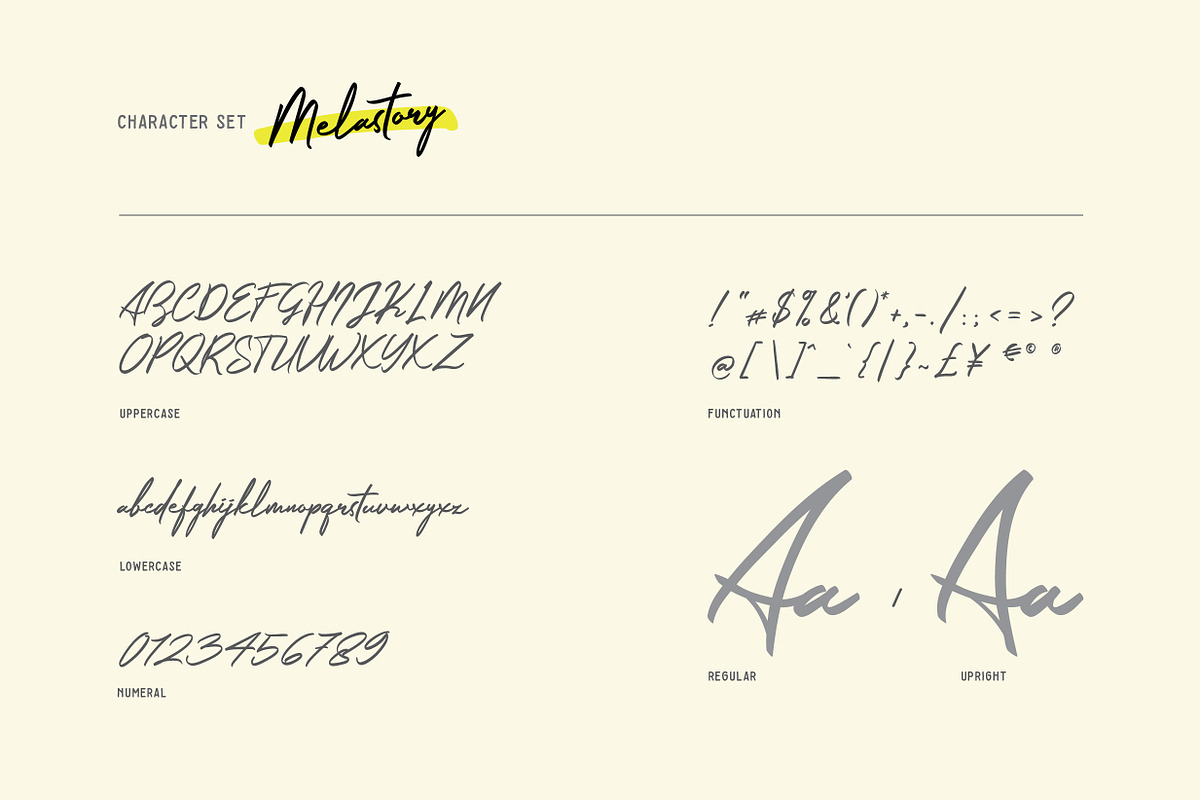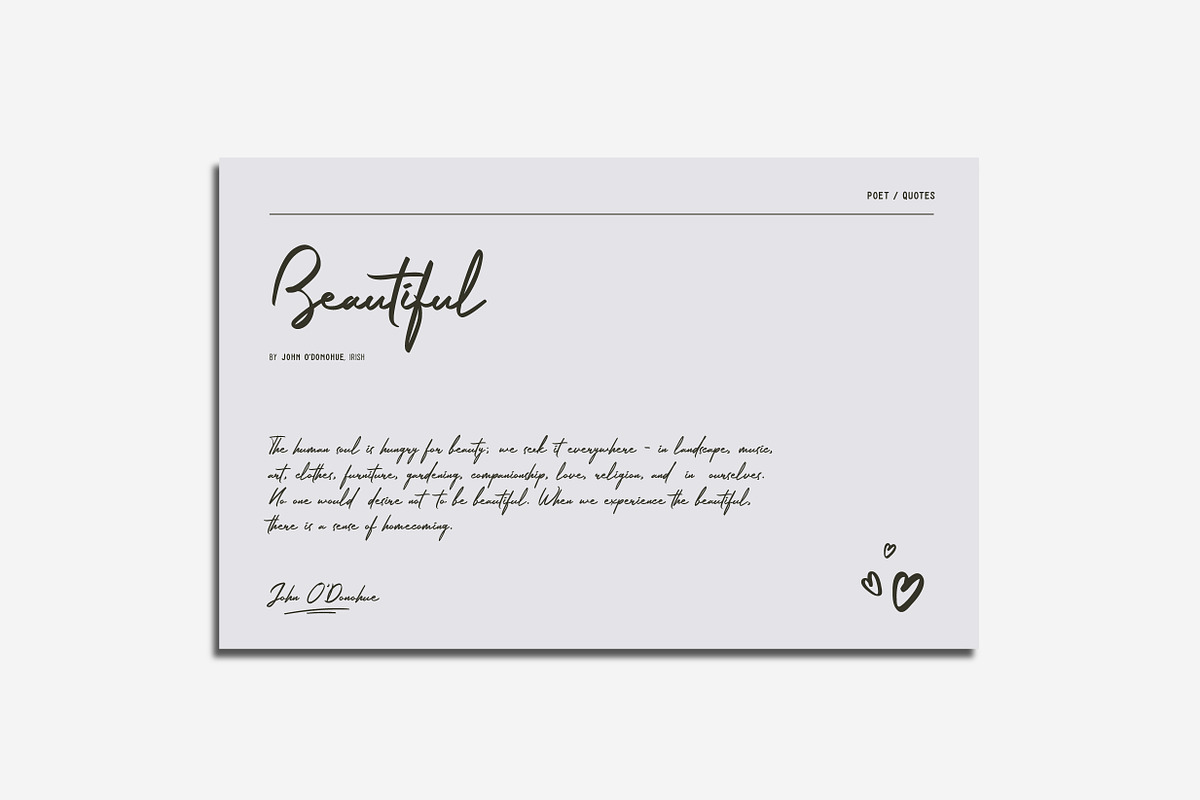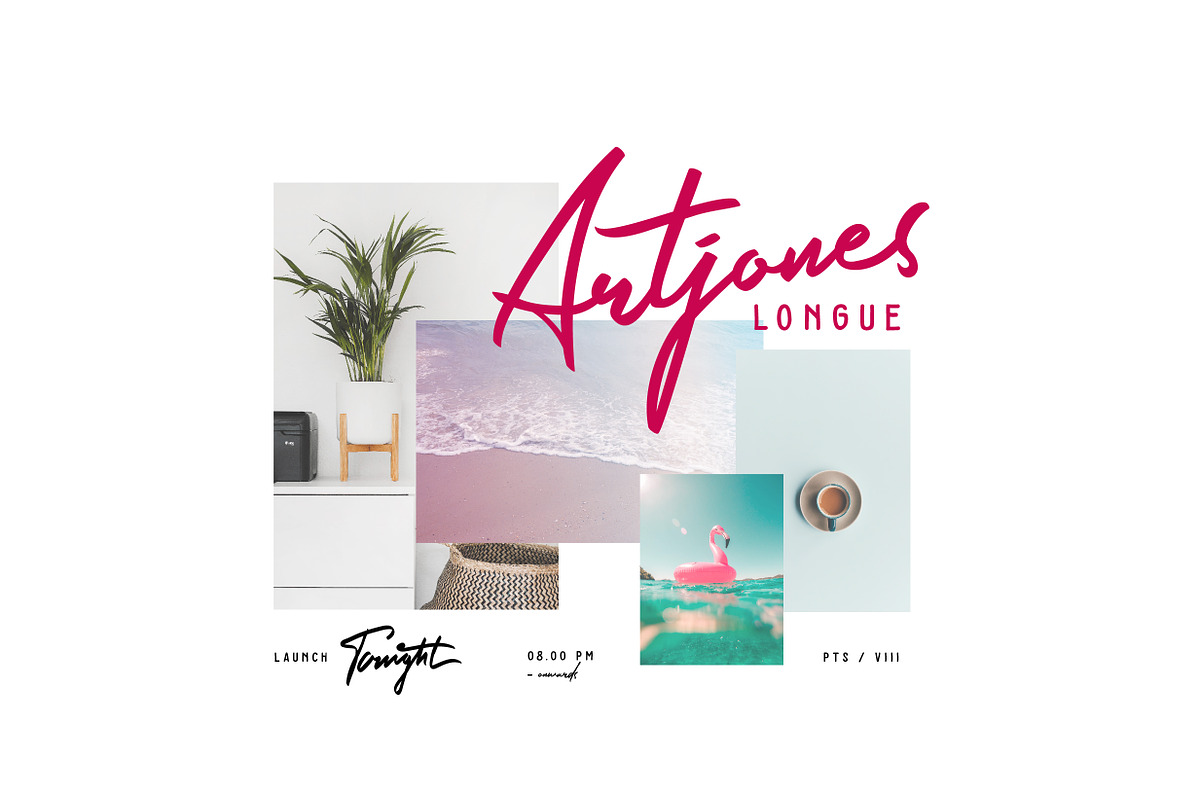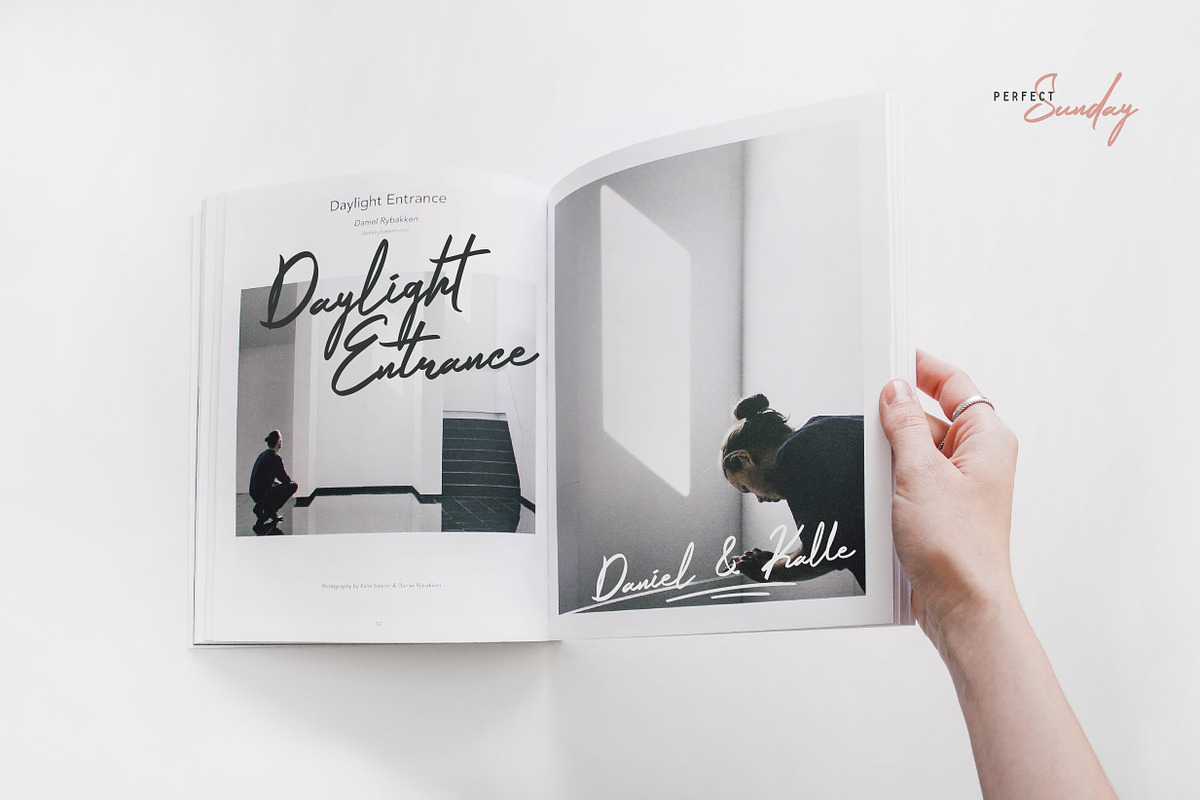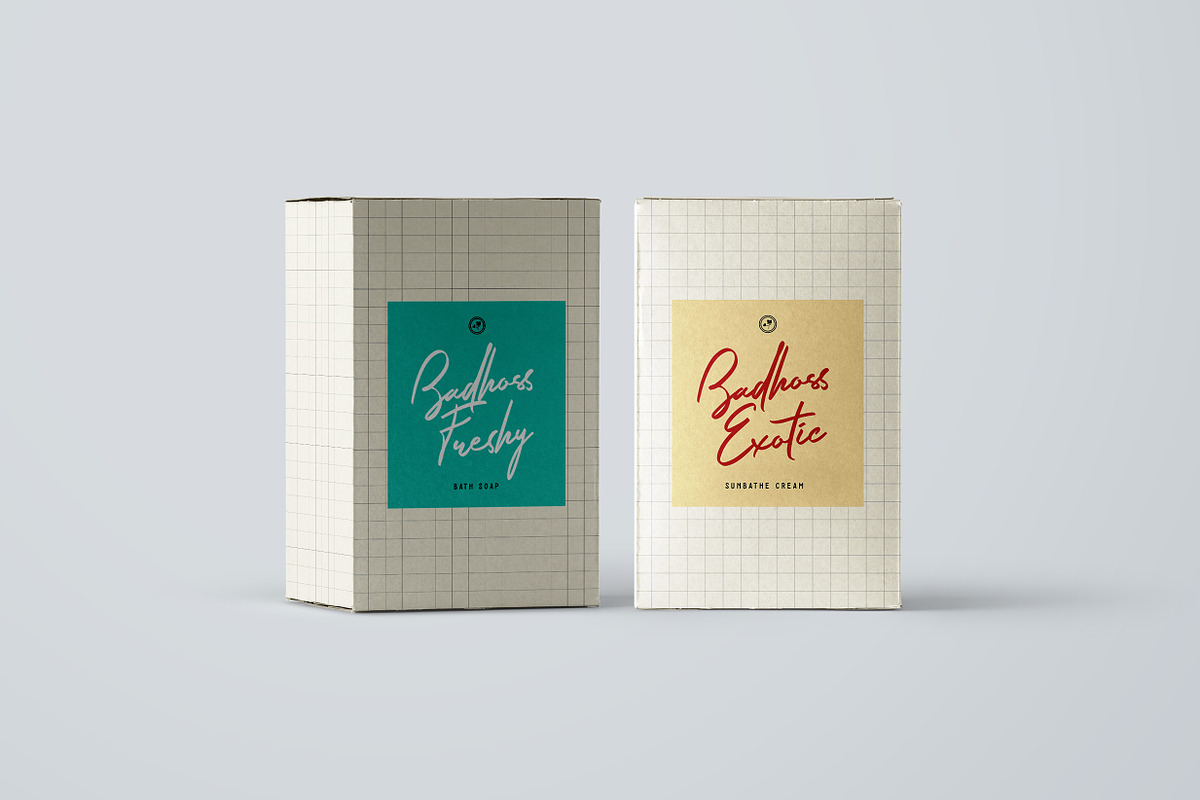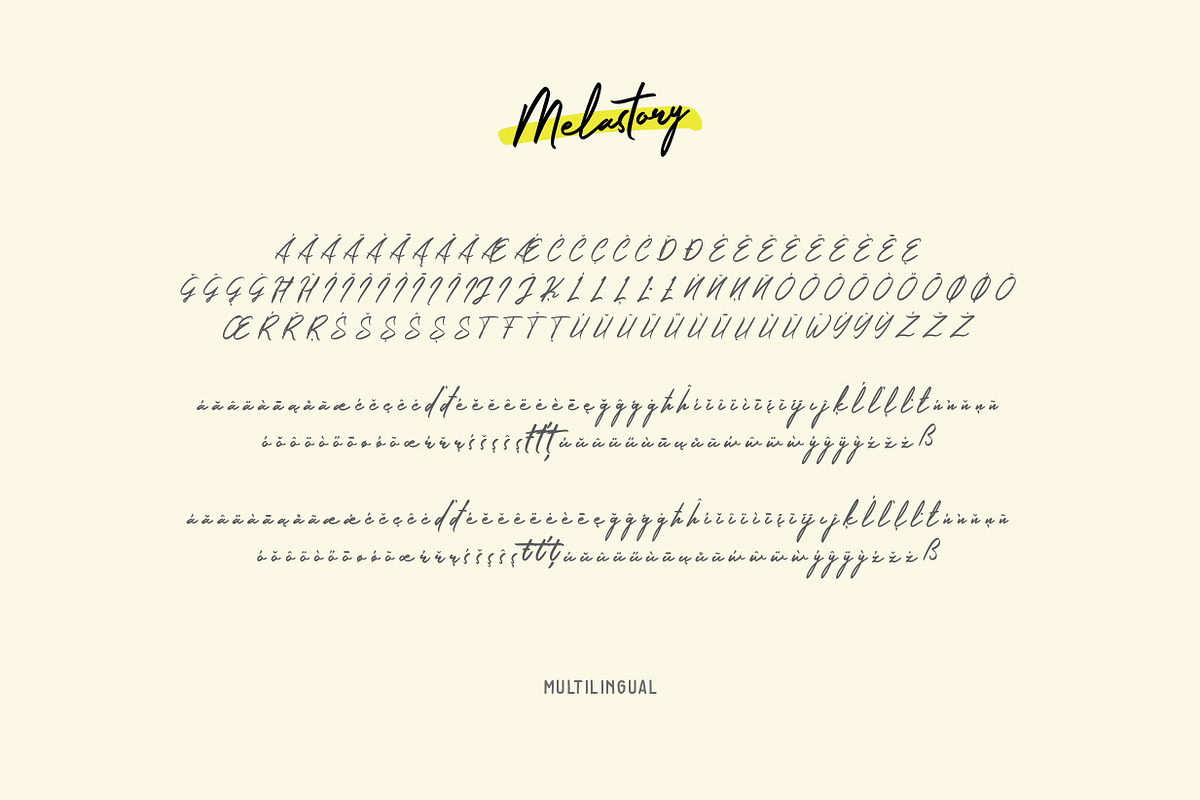
Melastory - modern signature font
Melastory is a modern signature font script with stylish movement, and perfect blend of feminine and masculine. It suitable for Logotype, Poster Tagline, Magazine Tagline, Greeting Cards, Invitation Card, or anything that needs to be in a stylish looks.